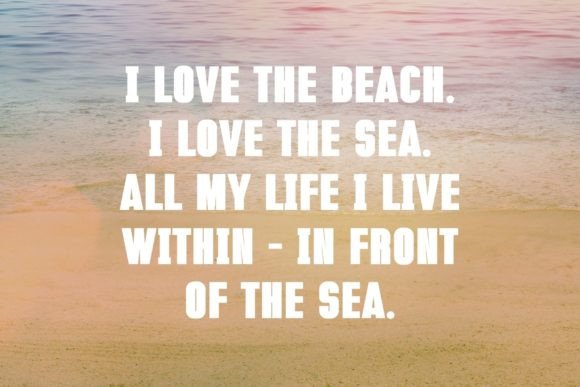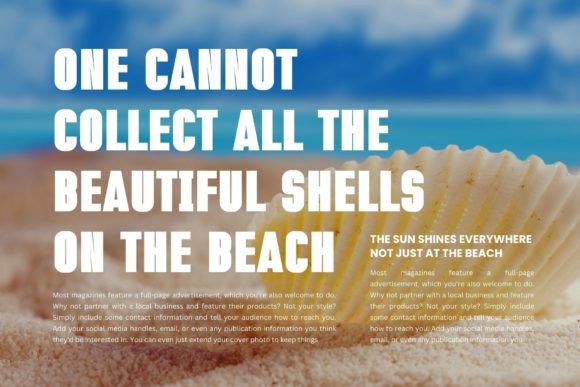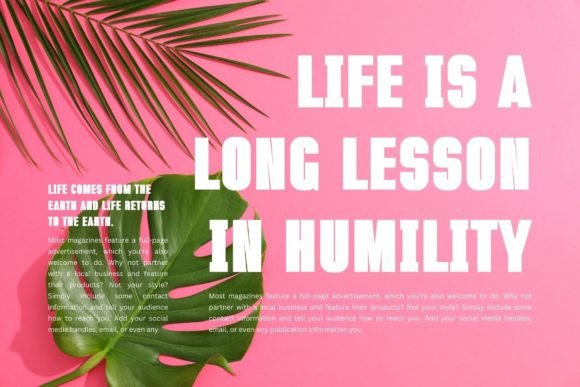
Introduction to Never Font
Have you ever stared at a blank canvas, feeling the weight of a creative project hanging in the balance? You know the feeling – the pressure to create something truly remarkable, something that will leave a lasting impression. As designers, we’ve all been there. But what if you had the perfect tool to bring your vision to life? Enter Never Font, a sleek and sophisticated sans serif font that’s poised to revolutionize the way you approach your next creative project.
With its clean lines and minimalist design, Never Font exudes a sense of modernity and professionalism, making it the perfect choice for designers looking to elevate their high-quality work. Whether you’re working on a digital interface or a printed material, Never Font is a valuable design resource that can add a touch of sophistication to any project.
Key Features of Never Font
- High-quality vector design: Never Font is crafted with precision and attention to detail, ensuring a crisp and clear appearance in any creative project.
- Unique design style: Never Font features a distinctive and creative design style that sets it apart from other fonts, making it perfect for designers looking to add a touch of originality to their projects.
Honest Review: Never Font
I recently stumbled upon Never Font, and I must say, it’s a game-changer for my creative projects. The font is a high-quality addition to any design resource, and the best part? It’s a free download! I was impressed by the level of detail and the seamless integration with my design software.
- ✨ Transparancy: Never Font comes with a transparent background, which makes it super easy to overlay on top of images or other design elements.
- ✨ Customization: The font is highly customizable, allowing me to tweak the style to fit my design needs.
- ✨ Versatility: I’ve used Never Font for both digital and print projects, and it performs equally well in both mediums.
However, I did encounter a few limitations. ⚠️ The font library is not as extensive as some other paid options, and the font weights are somewhat limited. Additionally, the font may not be as suitable for projects that require a lot of bold, eye-catching typography.
Overall, I’m thoroughly impressed with Never Font. It’s a fantastic resource for designers on a budget or those looking for a reliable, high-quality font for their creative projects. With its transparent background and high level of customization, Never Font is definitely a design resource worth checking out.
Use Never Font for creative projects such as logo design, infographic creation, and presentation design. Its transparent background makes it ideal for overlaying on images.
Experiment with different font sizes, colors, and styles to create visually appealing designs. Use the transparent background to create a seamless design experience.